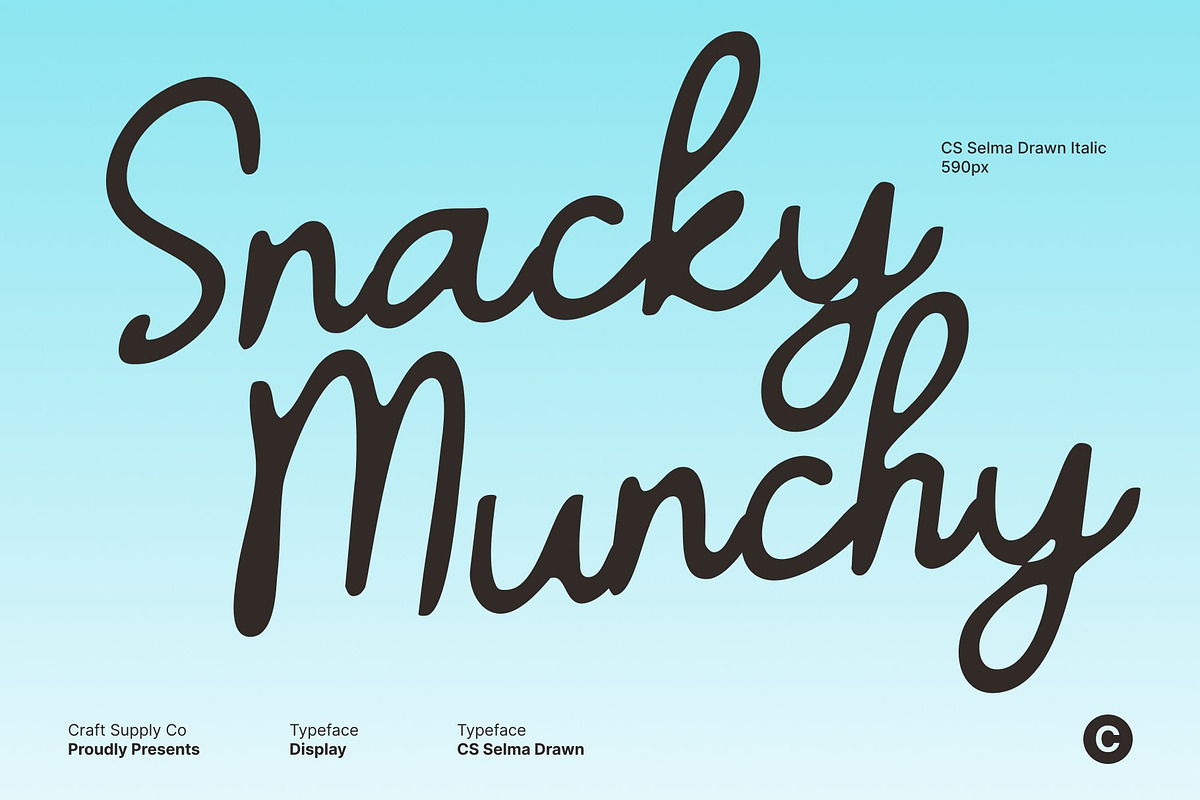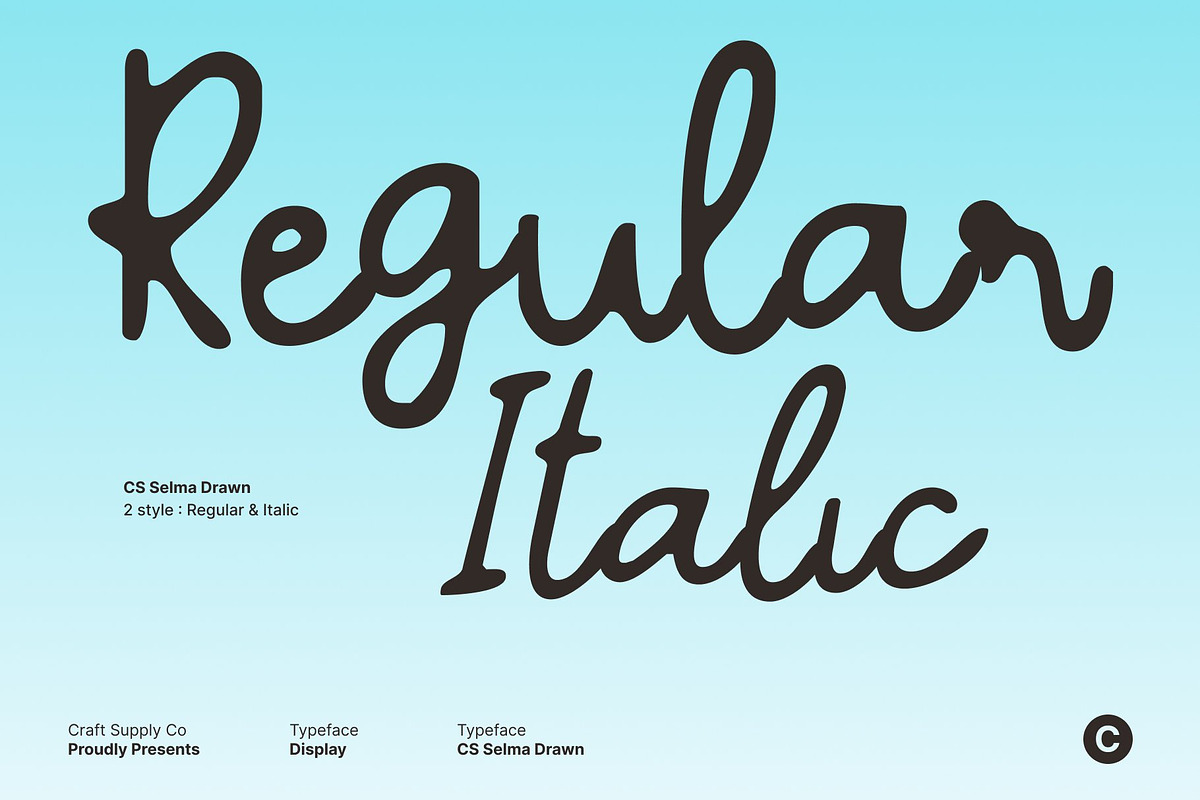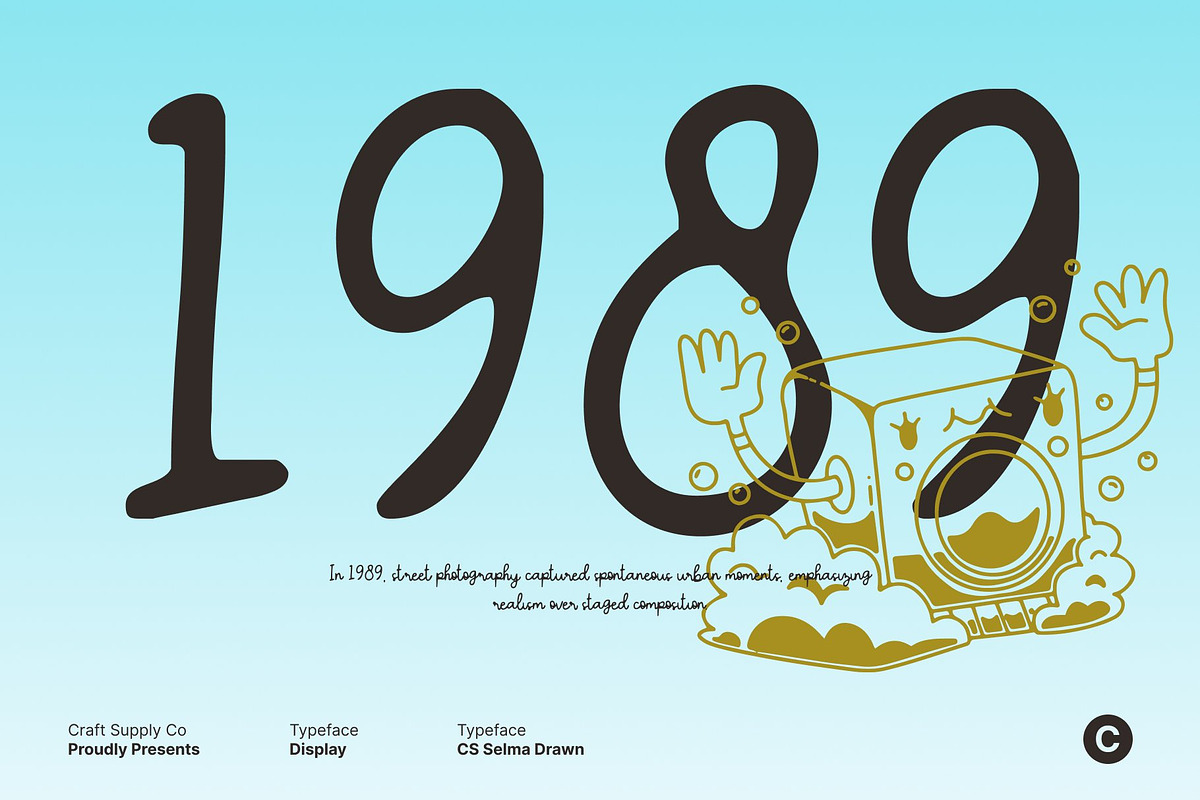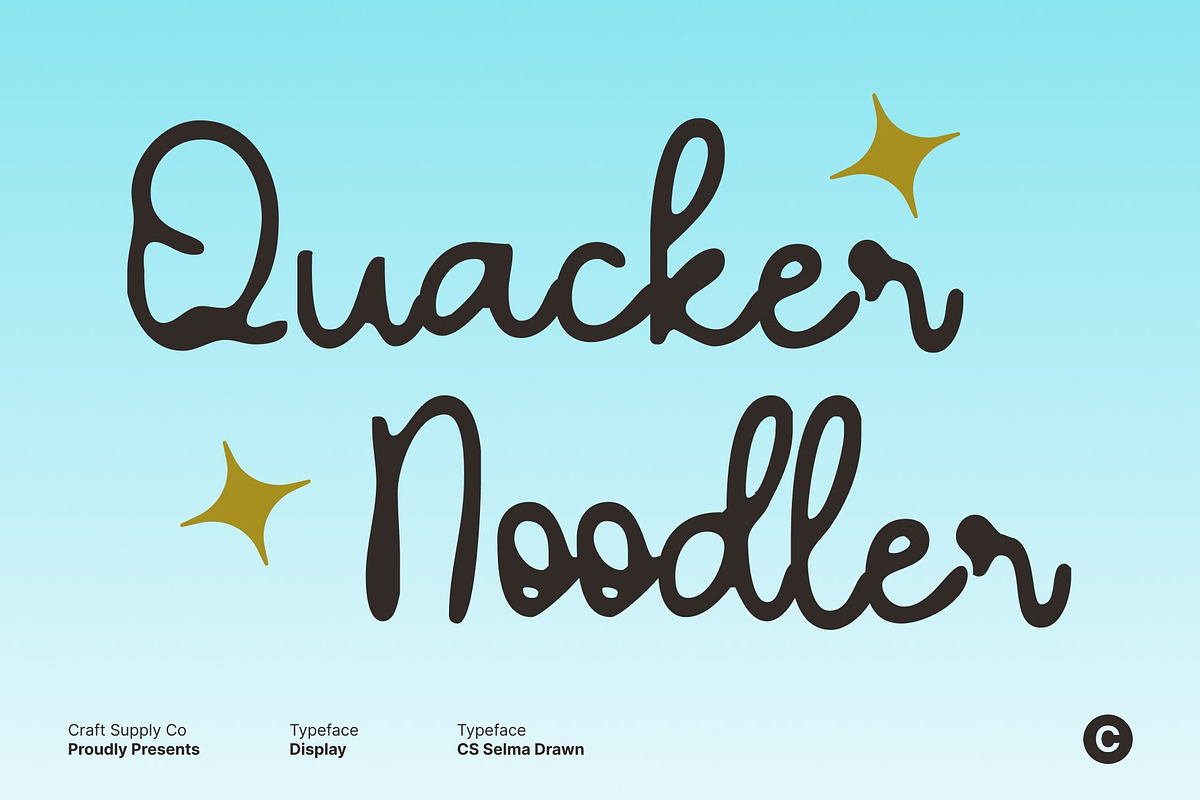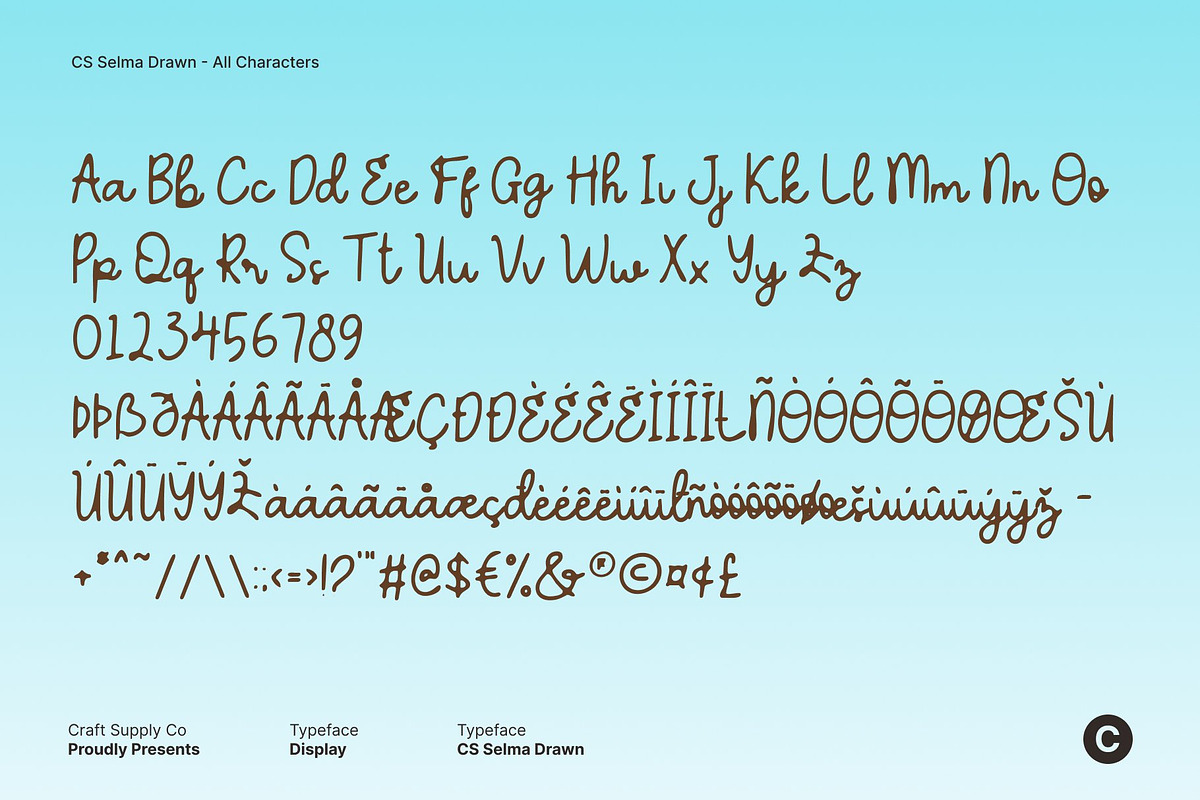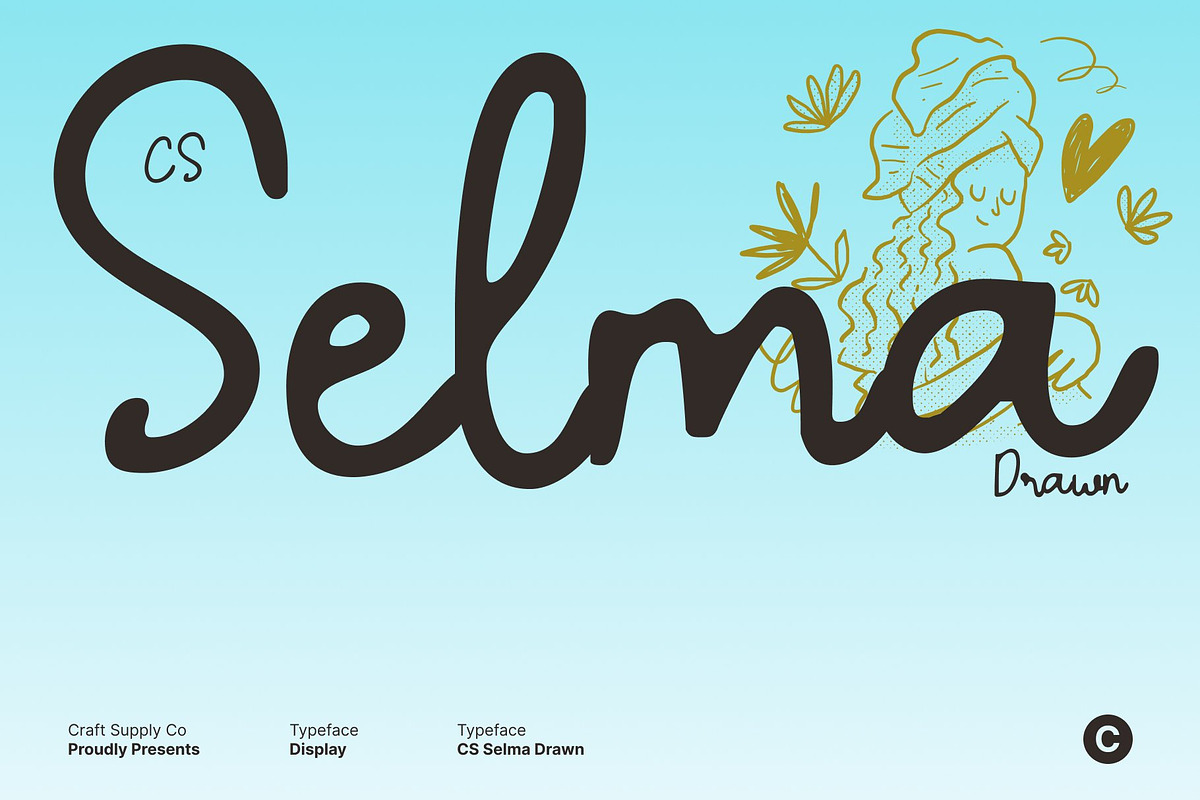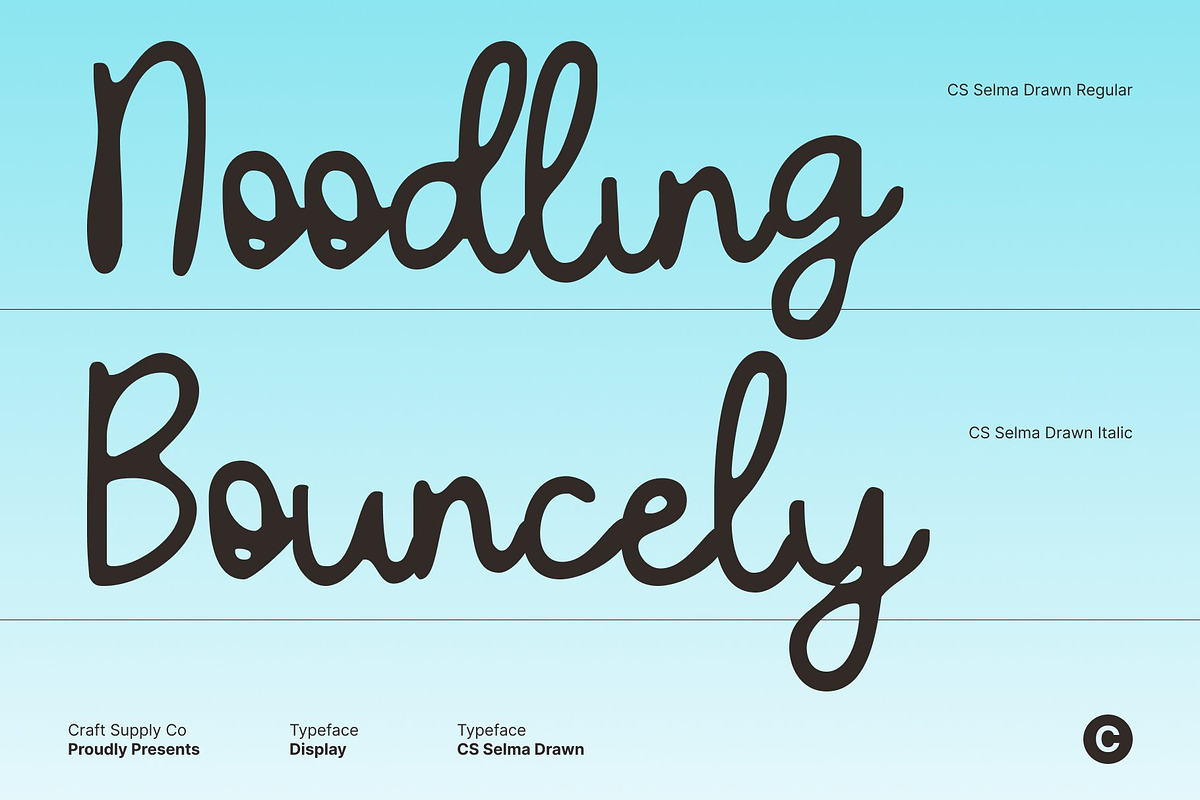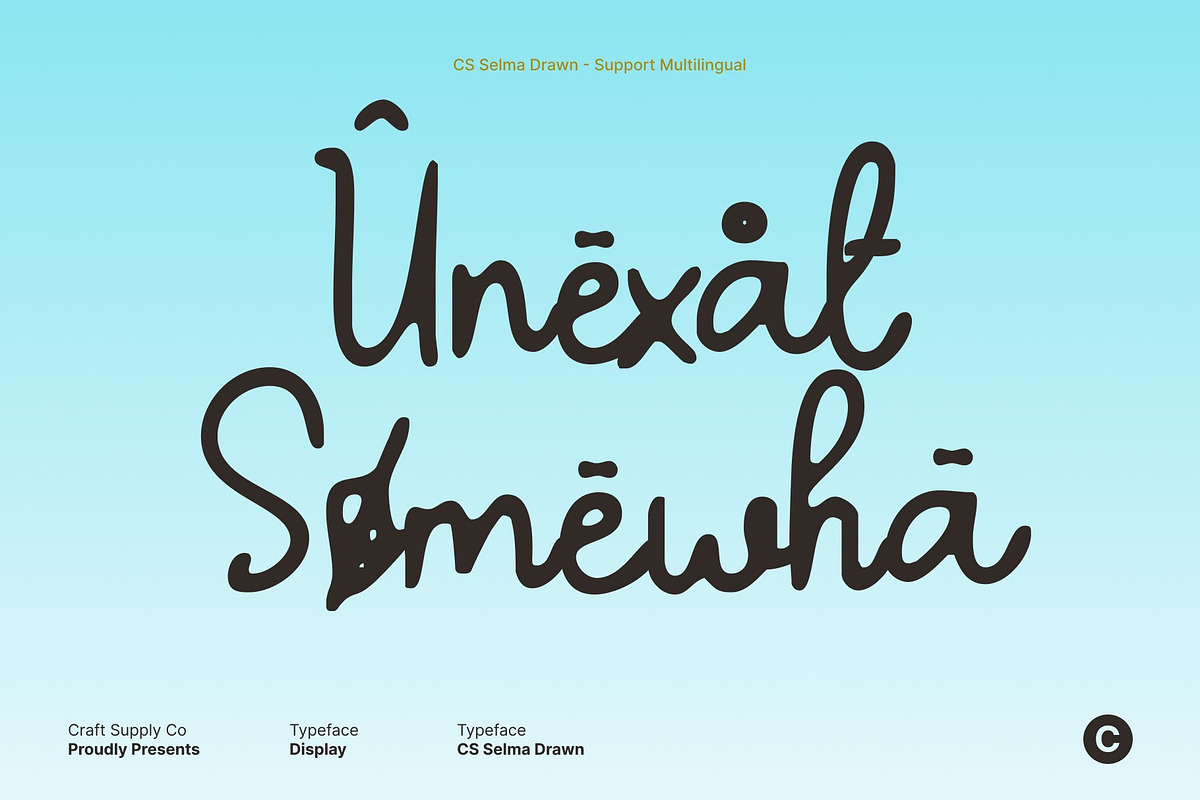
CS Selma Drawn
CS Selma Drawn – Script Font: Where Grace Meets Timeless Elegance
Handwritten Script with Flowing, Hand-Drawn Beauty This is an handwritten script font that embodies grace, softness, and natural flow. Its gently drawn strokes and refined curves create a romantic, luxurious impression while preserving an organic, human feel. Each letter flows smoothly, giving the font a warm and sophisticated personality.
Refined Details with a Drawn Texture Touch The beauty of this font lies in its delicate details and subtle hand-drawn texture. Soft stroke transitions and balanced rhythm reflect the charm of traditional handwriting, enhanced by an artisanal quality. This drawn finish adds depth and authenticity, making every word feel carefully crafted and visually rich.
Perfect for Elegant and Romantic Projects This font shines in wedding invitations, fashion branding, editorial designs, and luxury packaging. Whether used for headlines, logos, or signature accents, it elevates layouts with emotion and refinement. Its graceful style is ideal for designs that aim to feel intimate, expressive, and polished.
A Modern Classic for Distinctive Branding Blending classic calligraphy inspiration with modern elegance, this font offers timeless versatility. Its expressive script and handcrafted charm make it a perfect choice for designers seeking beauty, sophistication, and enduring visual appeal across both contemporary and classic projects.